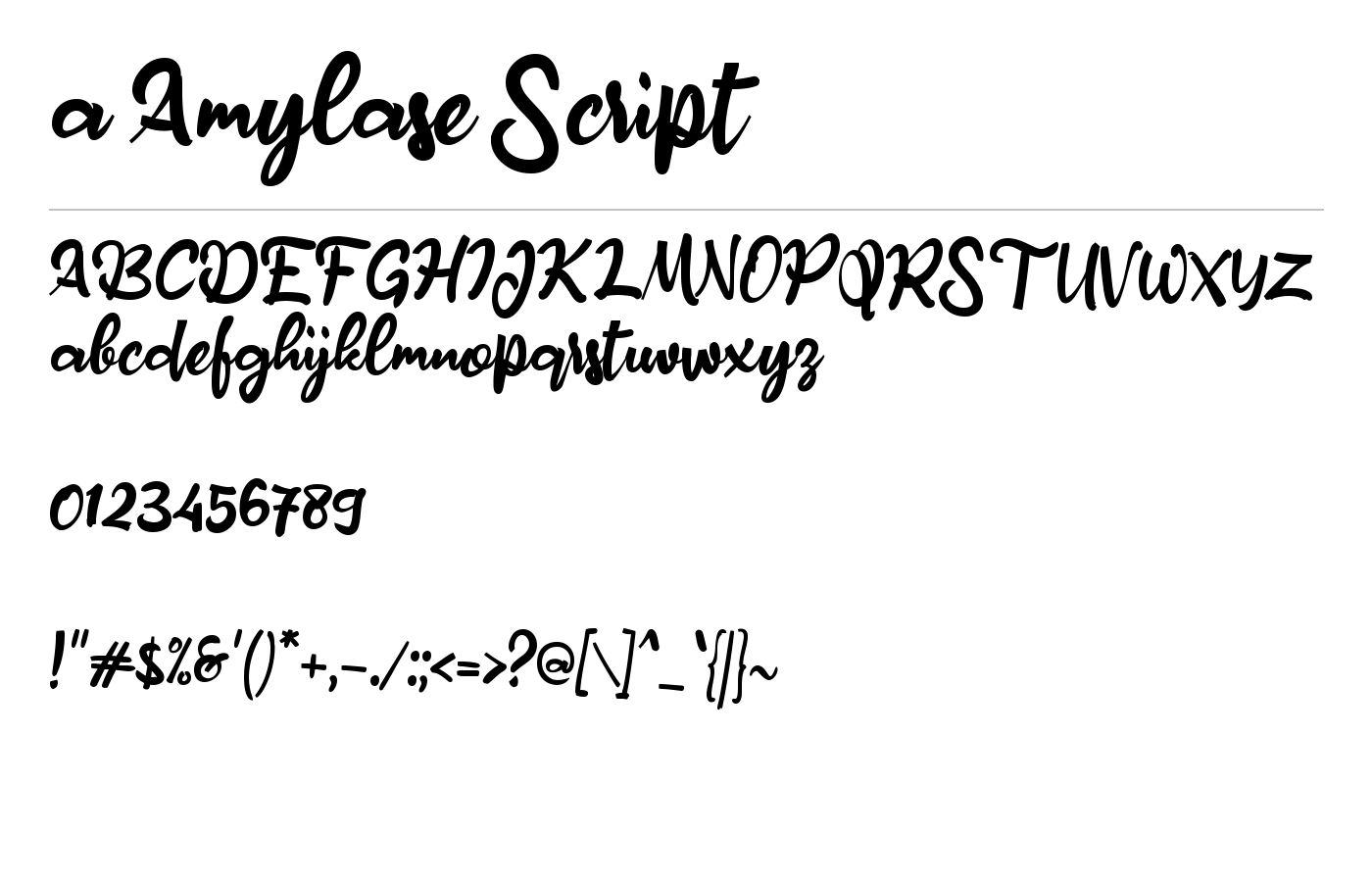
Amylase Script is a lively and elegant script font characterized by its smooth, medium-weight strokes and casual handwritten feel. With its clear letterforms, including distinctive single-story and double-story characters, it balances playfulness and sophistication, making it ideal for creative branding, invitations, and stylish headlines. This font brings a friendly yet refined personality, perfect for adding a personal touch to designs without sacrificing readability.
a Amylase Script Font
About a Amylase Script Font